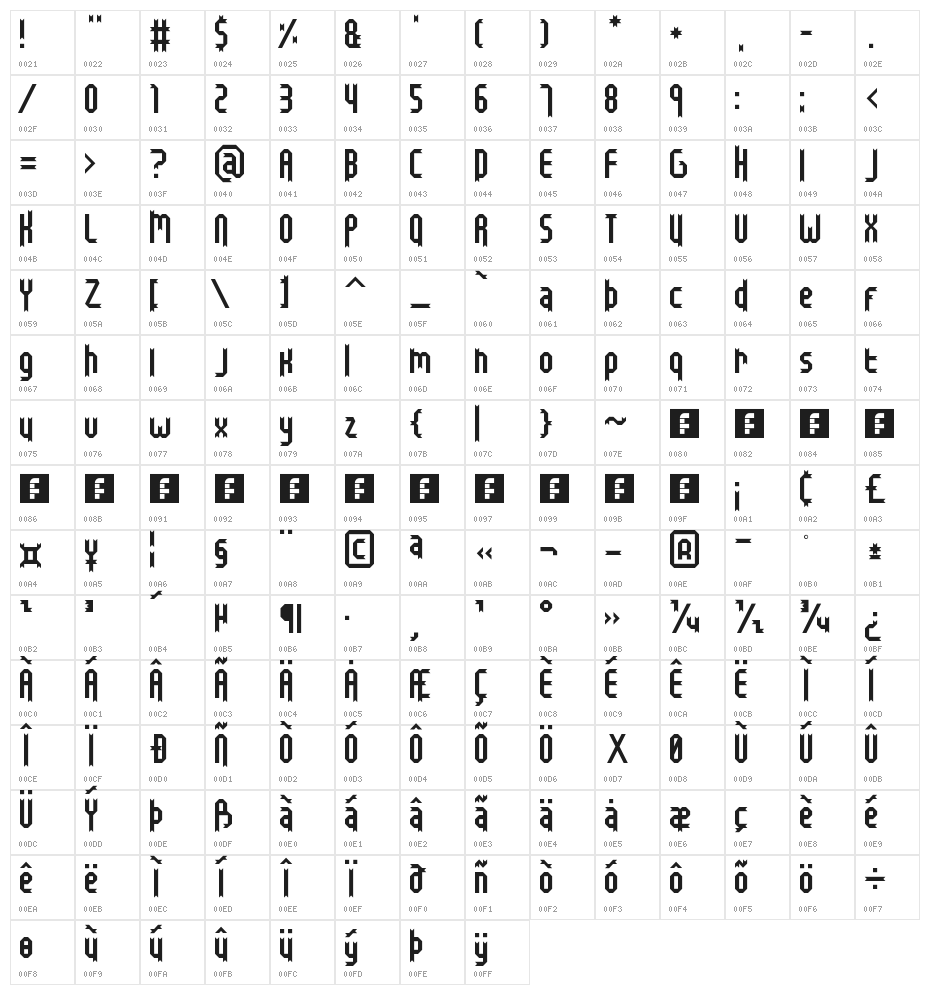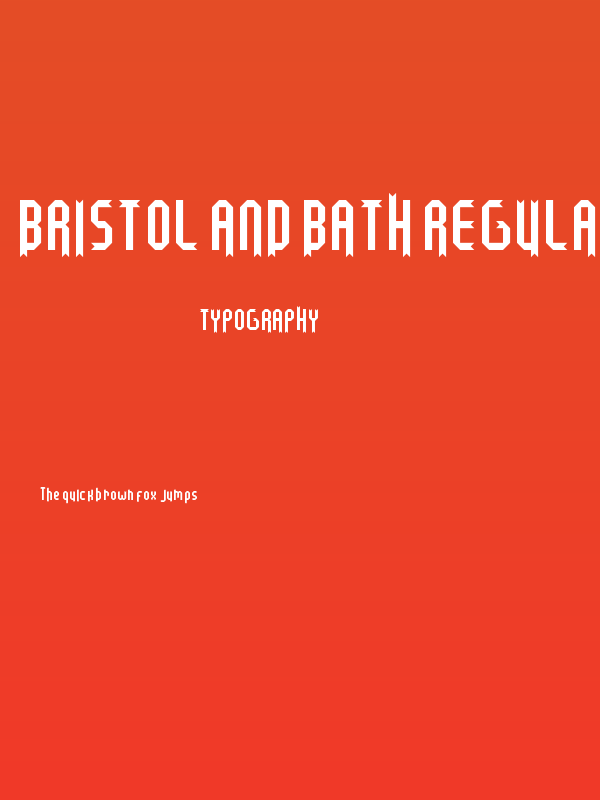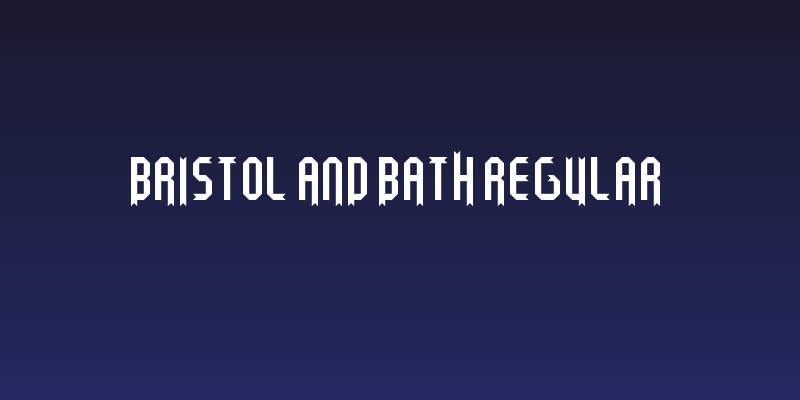
Bristol and Bath Regular Font
Bristol and Bath Regular Description
This font features a bold and striking design with sharp, angular edges and a geometric structure. The uppercase letters are tall and imposing, while the lowercase letters maintain a consistent style with slightly more rounded forms. The numerals are equally bold, with a uniform height that matches the uppercase letters. Special characters are designed with the same angular precision, making them stand out. The overall appearance is modern and edgy, suitable for making a strong visual impact.
| Proposed Projects | Ideal for branding, posters, and headlines that require a strong, impactful presence. |